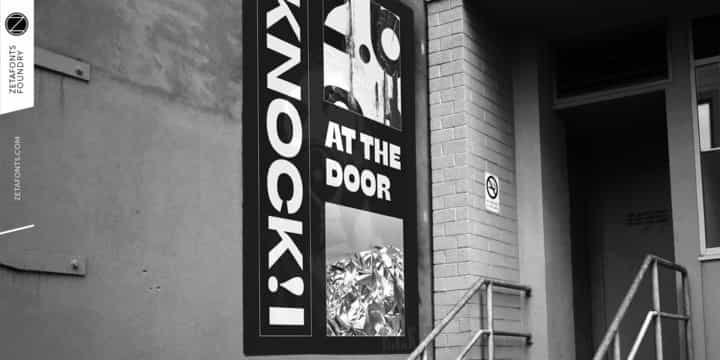
Stinger is characterized by corners, ideal curves and precise lines—a font that aligns perfectly with fashion trends to accentuate the style of your product. Great aesthetics and readability shine through in texts and articles extending seamlessly to inscriptions, with a strong emphasis on minimalistic and contemporary design. Ideal for branding, printed materials and more.